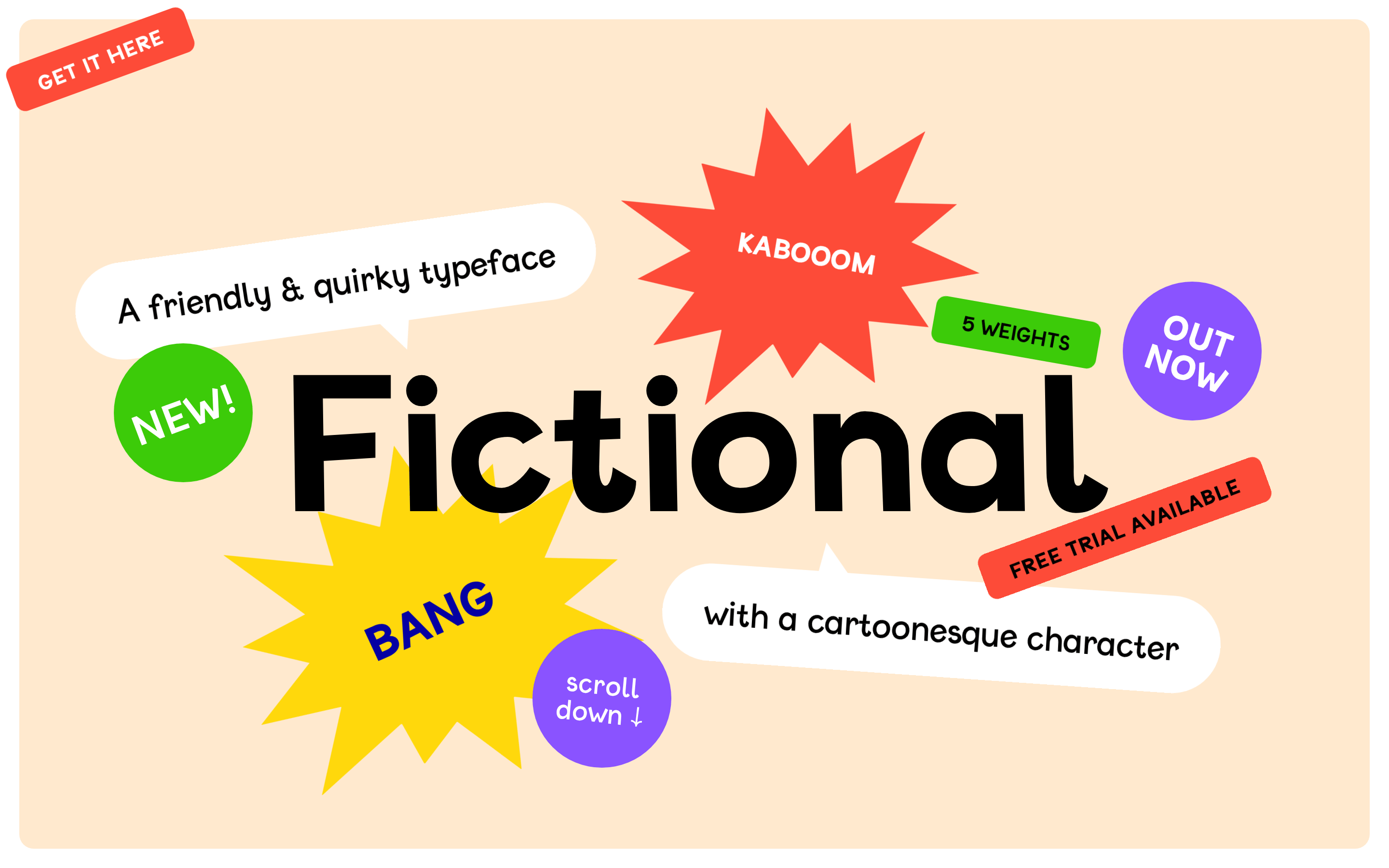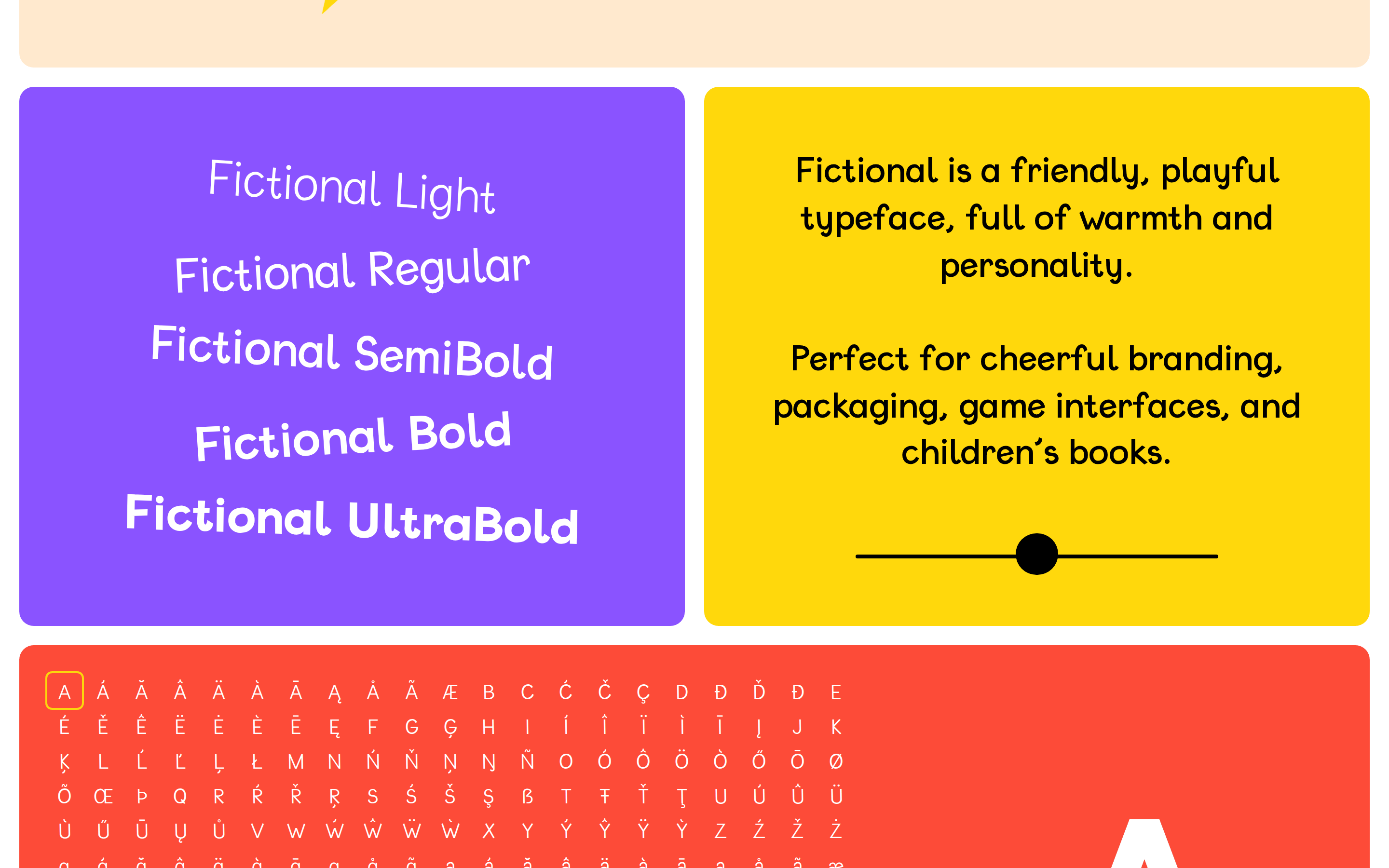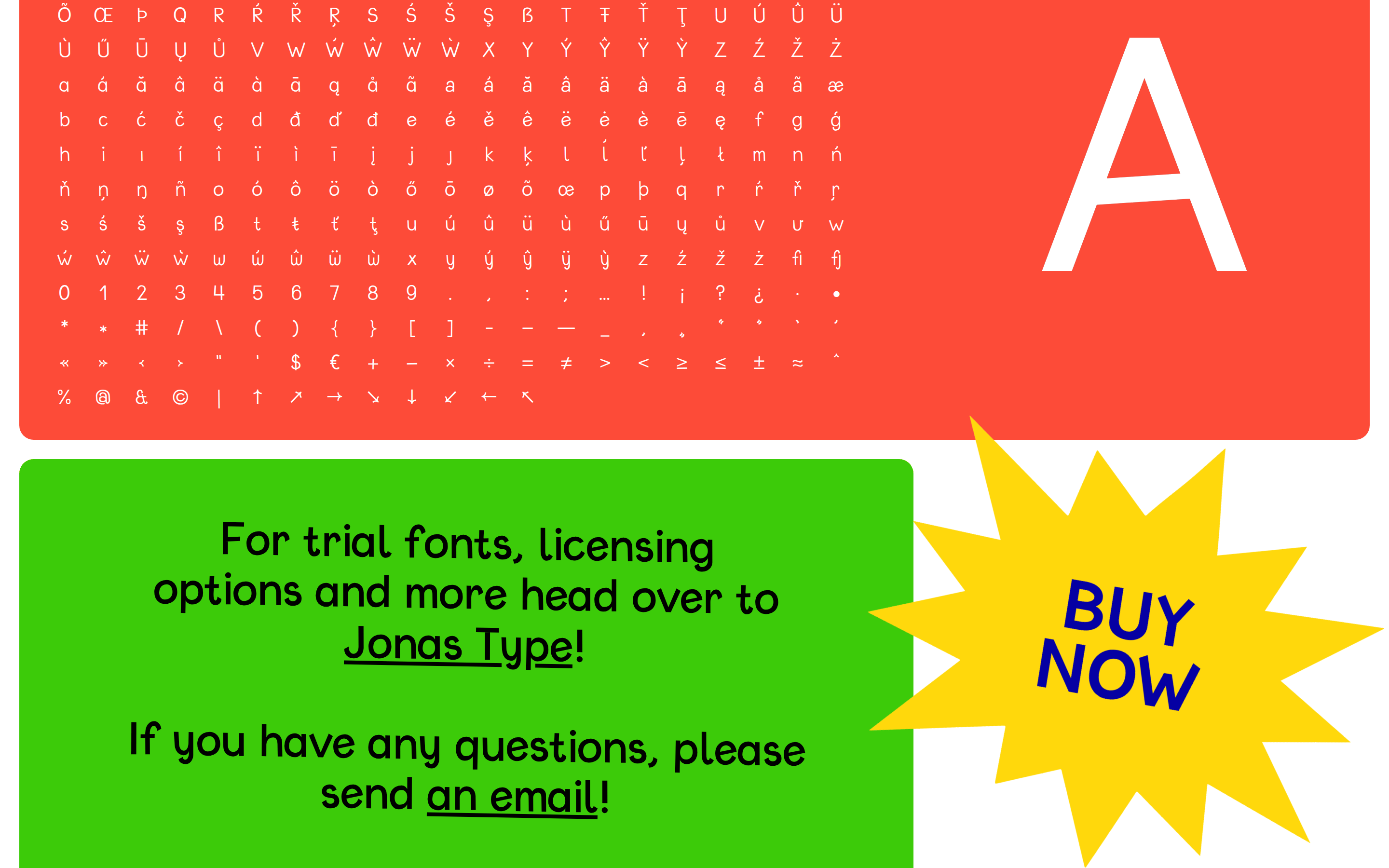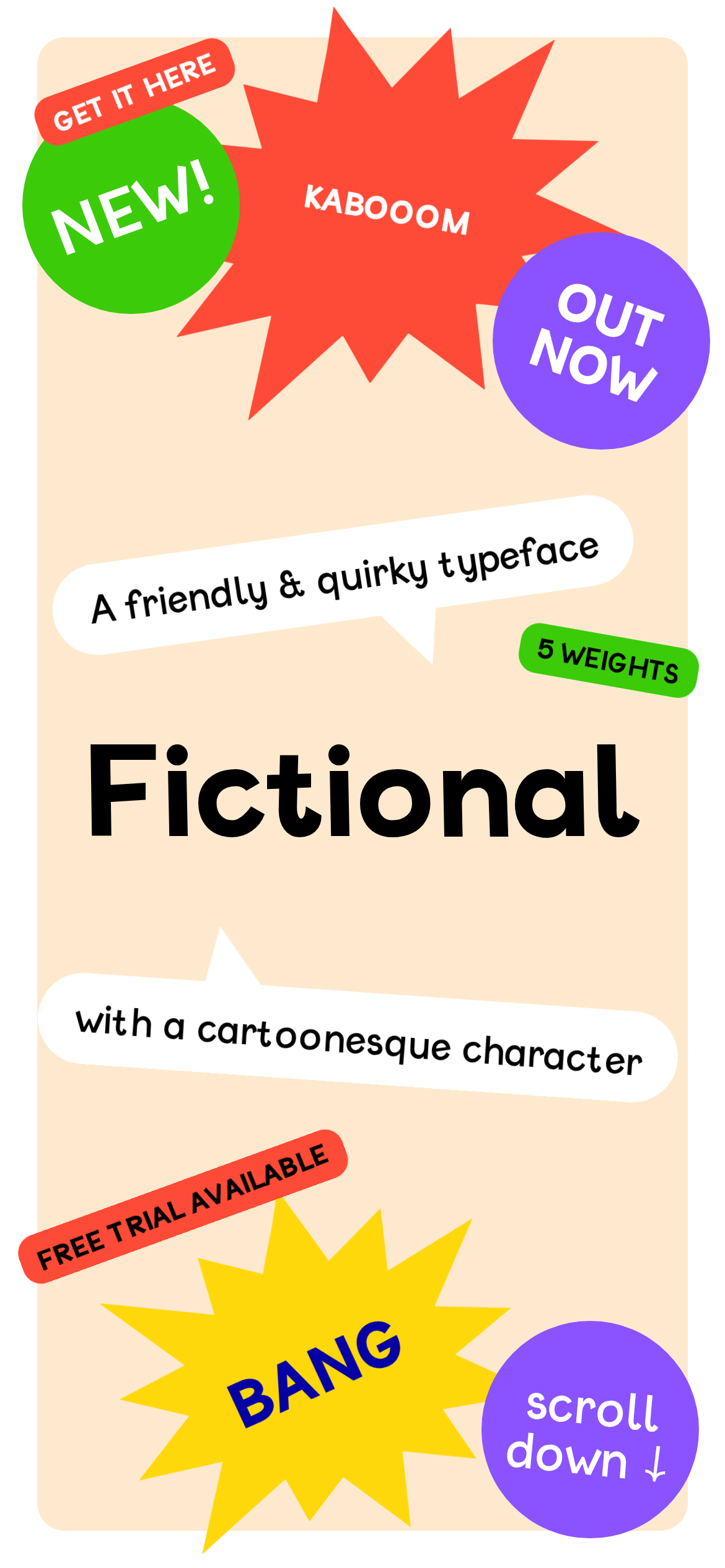
Fictional Typeface
A loud, comic-book-inspired type specimen for a quirky geometric typeface.
A pop-art comic book page brought to life
High-chroma pop colors (red, yellow, green, purple) on a soft peach background, creating a playful, chaotic, yet cohesive comic-book aesthetic.
Typography
humanist-sans
Comic book panels with intentional overlaps and scattered elements
Minimal or white borders, no dark outlines on shapes
Scattered, non-linear comic panel composition
This is a playful, comic-book-inspired typeface specimen site. The visual language uses scattered, overlapping comic elements (speech bubbles, starbursts, stickers) on a soft peach background (#FFE9CE). Typography is exclusively a custom humanist-sans typeface in black (#000000). High-chroma accent colors include red (#FD4B38), green (#3CCB09), purple (#8A53FF), and yellow (#FFD80C). Elements are intentionally rotated, overlapping, and scattered rather than following strict grids. Interactions use bouncy, elastic transforms. Critical donts: Never use muted or corporate palettes, never align elements to rigid grids, never use subtle shadows or borders, and never present text horizontally without playful rotation.